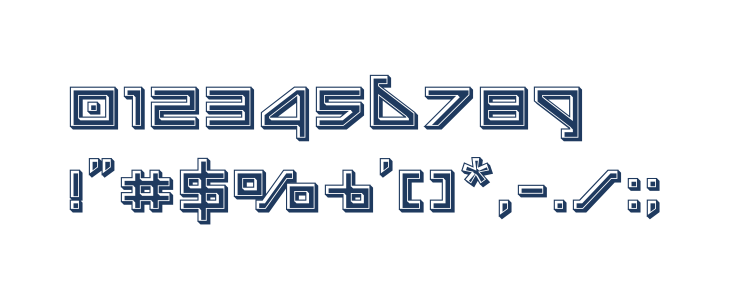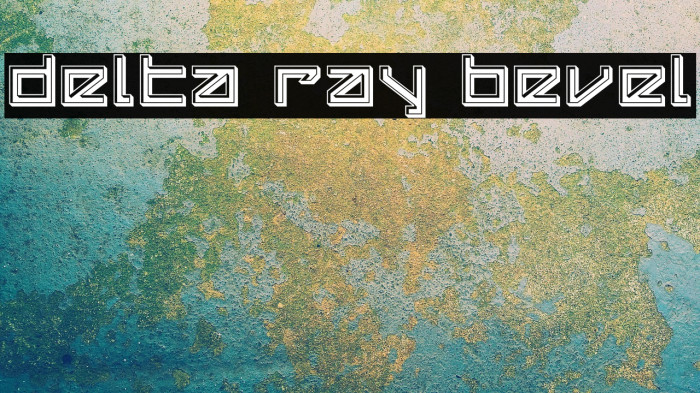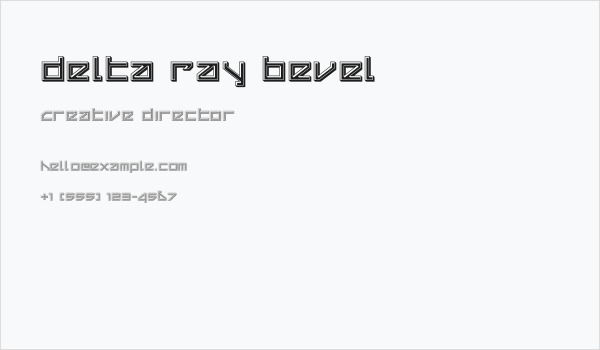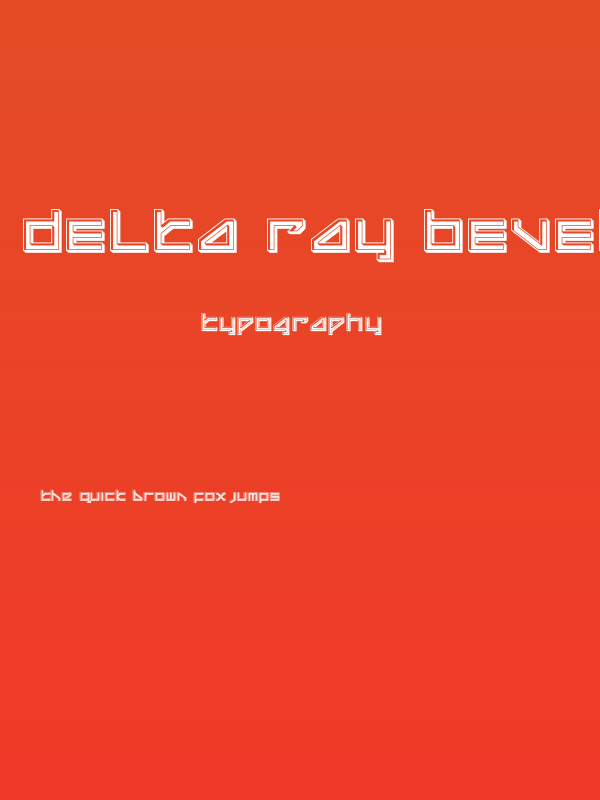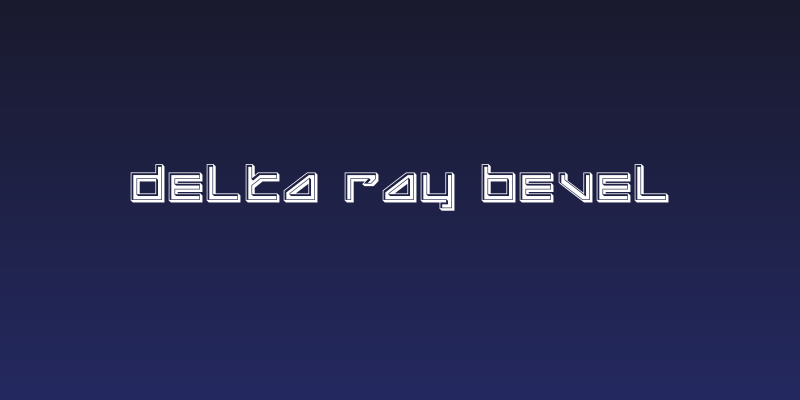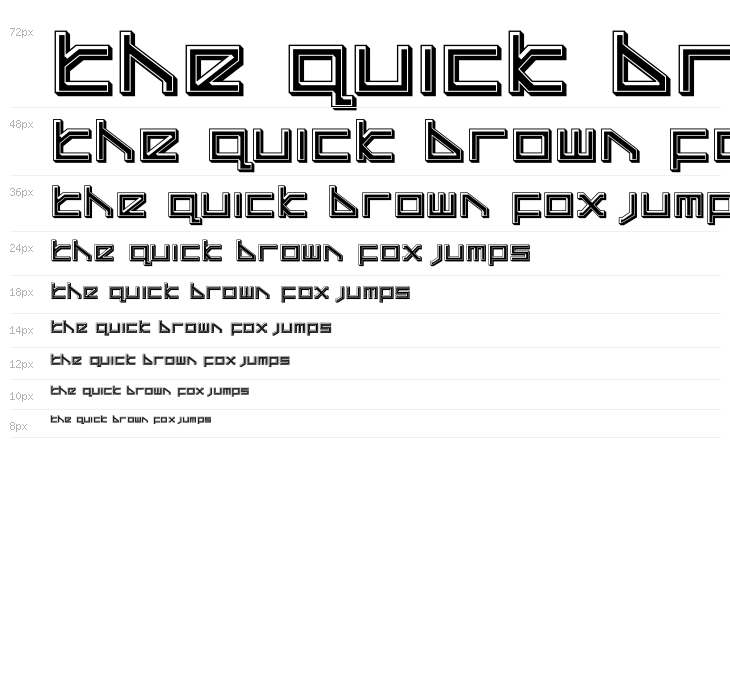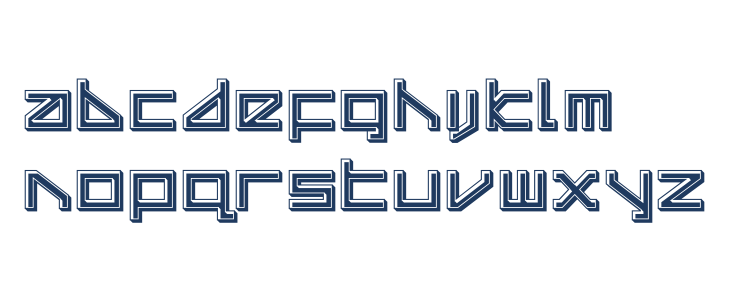
Delta Ray Bevel Font
Delta Ray Bevel Description
This font features a bold, futuristic design with a distinct beveled edge that gives it a three-dimensional appearance. The characters are constructed with a consistent stroke width, creating a uniform and cohesive look. The geometric shapes and sharp angles contribute to its modern and tech-inspired aesthetic. Each letter is clearly defined, making it highly legible while maintaining a unique style. The font includes a full set of uppercase and lowercase letters, numbers, and a variety of special characters, ensuring versatility for different design needs. Its bold presence makes it suitable for attention-grabbing headlines and logos.
| Proposed Projects | Ideal for technology branding, sci-fi themed projects, video game titles, and modern posters. |